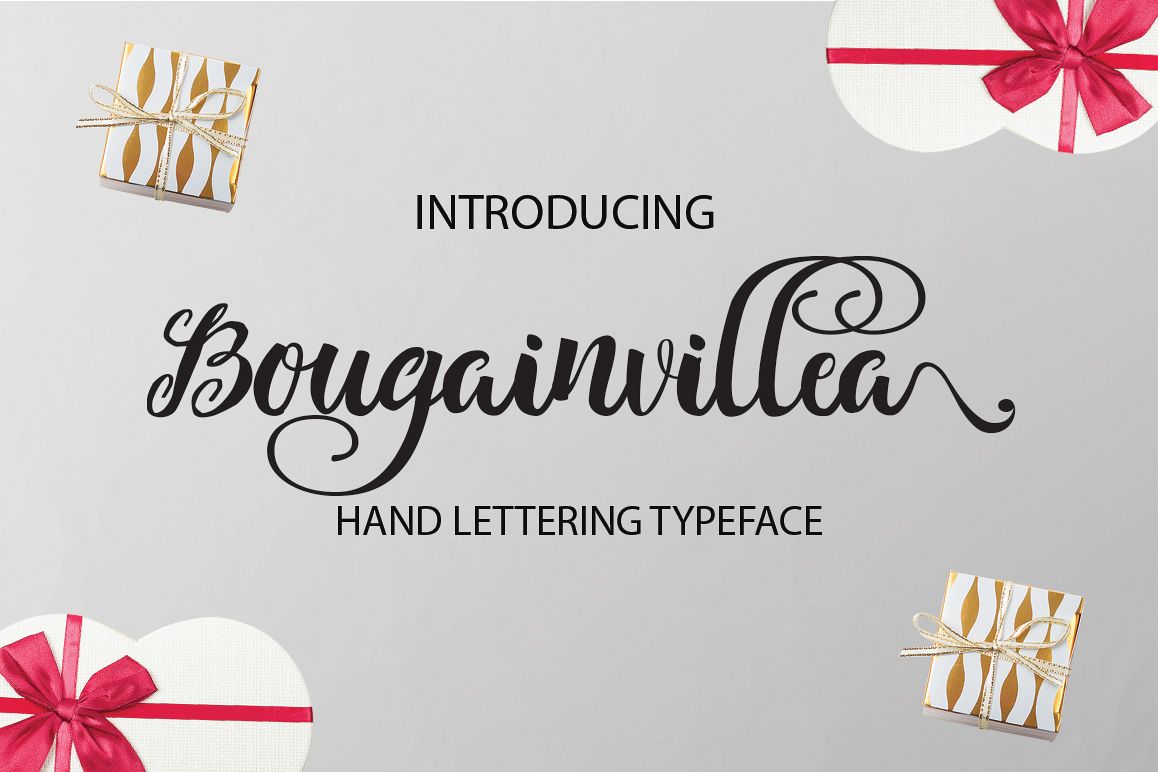
Bougainvillea
Bougainvillea designed to combine perfectly and allow you for creating masterful typographic designs in a flash and guaranteed to make your text stand out - perfect for logos, printed quotes, cards, labels, product packaging, headers and whatever your imagination.